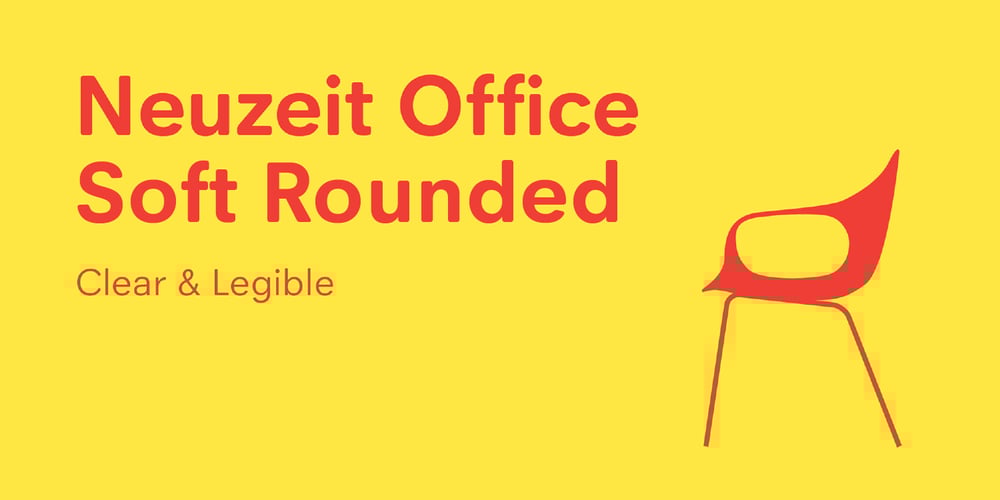
Neuzeit Office Soft Rounded
Neuzeit Office Soft Rounded font
Neuzeit Office Soft Rounded Font Family was designed by Akira Kobayashi and published by Linotype. Neuzeit Office Soft Rounded contains 2 styles and family package options. Every year, more and more text is read directly on a computer screen in office applications, or from freshly printed sheets from a copier or laser printer. Clear, legible text faces are more imperative to office communication than ever before. Yet every worker desires a small bit of personality in the corporate world. Most office environments are only equipped with a few basic fonts that are truly optimized for use in text, with laser printers, and on screen.The Linotype Office Alliance fonts guarantee data clarity. All of the font weights within the individual family have the same character measurements; individual letters or words may have their styles changed without line wrap being affected! All numbers, mathematical signs, and currency symbols are tabular; they share the same set character width, ensuring that nothing stands in the way of clear graph, chart, and table design. In addition to being extremely open and legible, the characters in this collection’s fonts also share the same capital letter height and the same x-height. The production and reading of financial reports is duly streamlined with the Linotype Office Alliance fonts. The Neuzeit Office family is designed after the model of the original sans serif family Neuzeit S, which was produced by D. Stempel AG and the Linotype Design Studio in 1966. Neuzeit S itself was a redesign of D. Stempel AG’s DIN Neuzeit, created by Wilhelm Pischner between 1928 and 1939. Intended to represent its own time, DIN Neuzeit must have struck a harmonious chord. DIN Neuzeit is a constructed, geometric sans serif. It was born during the 1920s, a time of design experimentation and standardization, whose ethos has been made famous by the Bauhaus and De Stijl movements in art, architecture, and design. Upon its redesign as Neuzeit S in the 1960s, other developments in sans serif letter design were taken into account. Neuzeit S looks less geometric, and more gothic, or industrial. Separating it from typefaces like Futura, it has a double-storey a, instead of a less legible, single-storey variant. Unlike more popular grotesque sans serifs like Helvetica, Neuzeit S and especially the redesigned Neuzeit Office contain more open, legible letterforms. Neuzeit Office preserves the characteristic number forms that have been associated with its design for years. After four decades, Neuzeit has been retooled once again, and it is more a child of its age than ever before.Akira Kobayashi, Linotype’s Type Director, created the revised and updated Neuzeit Office in 2006. His greatest change was to retool the design to make its performance in text far more optimal. Additionally, he created companion oblique to help emphasize text.The other three families in the Office Alliance system include Metro Office, Times Europa Office and Trump Mediaeval Office.Some weights of the Neuzeit Office are availabla as soft rounded versions. “